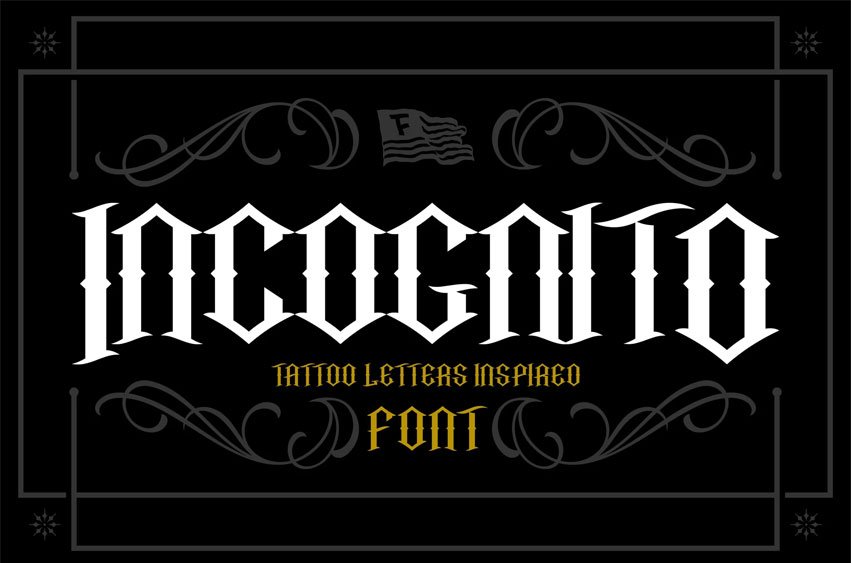
Incognito Tattoo Font are classic blackletter fonts that are heavily inspired by tattoo and custom culture.
Suits best if you’re working on gothic, tribal, tattoo-themed designs. Comes in two regular formats (OTF and TTF).